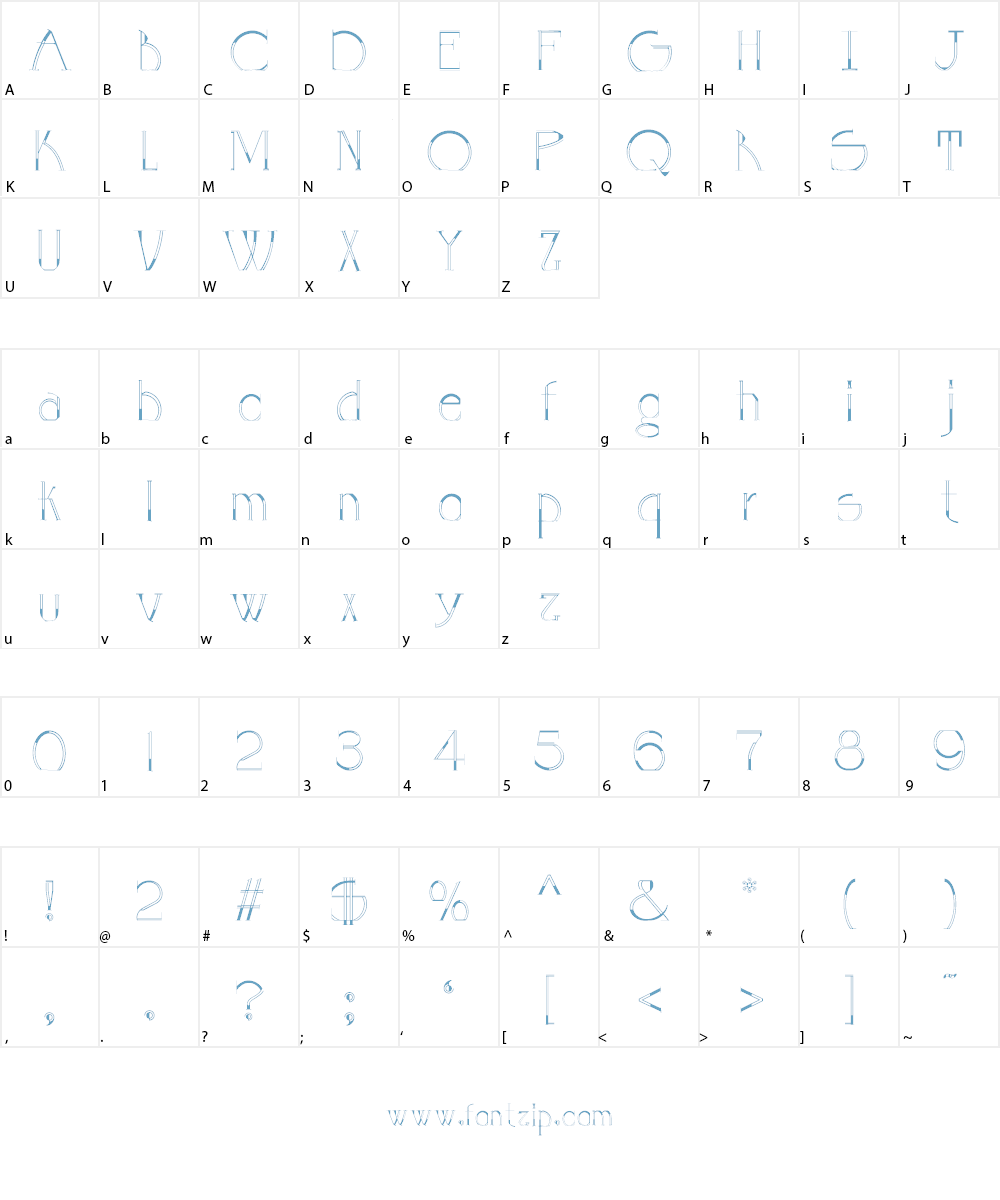
This is Cherokee Unicode typeface. GOLA UNOLE means Winter Air in Cherokee. This font was intended to be used for Cherokee arts & crafts display projects.